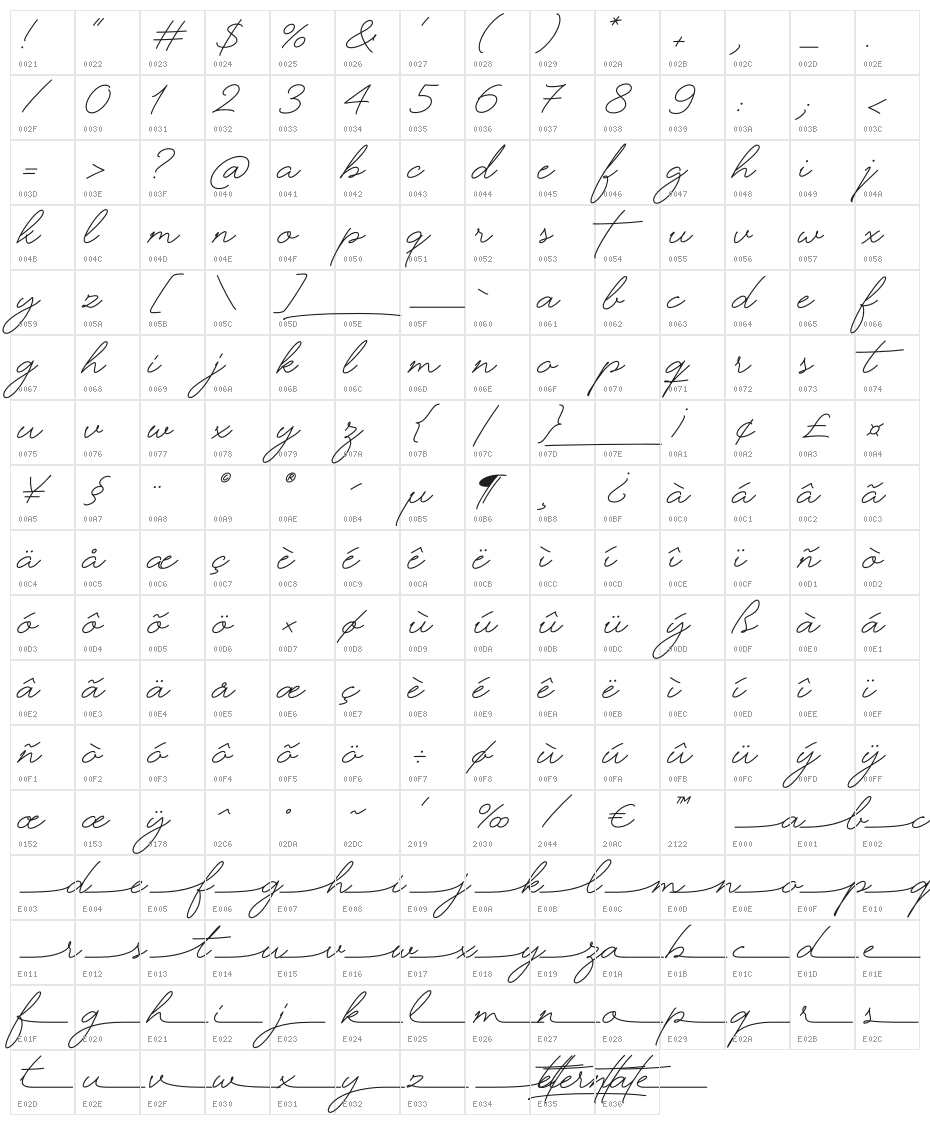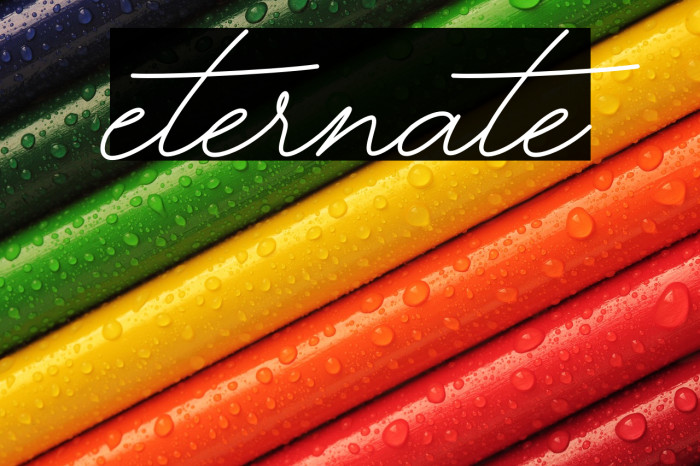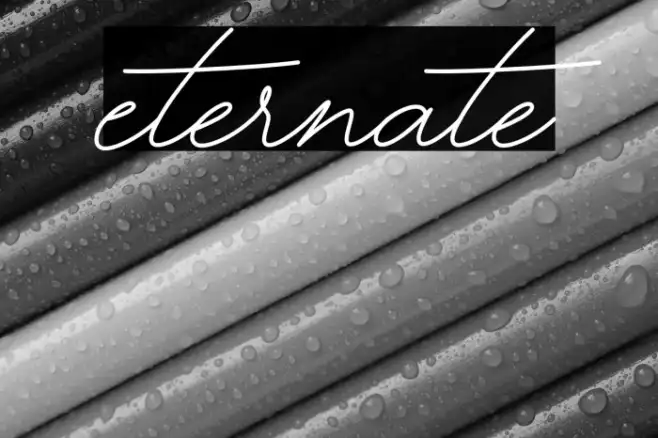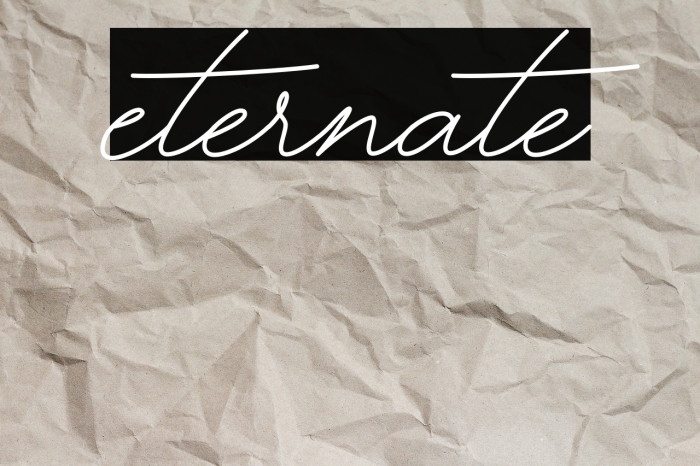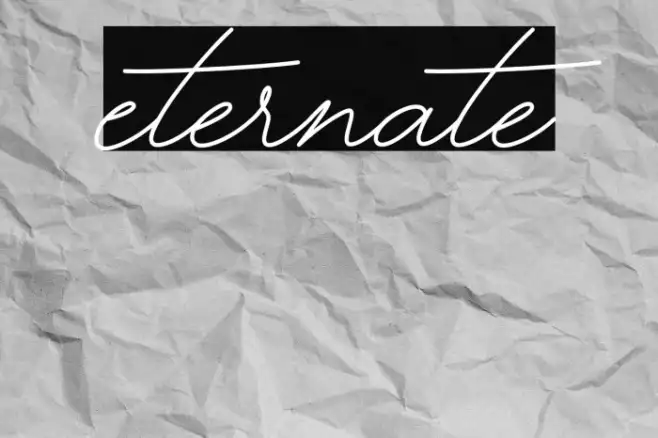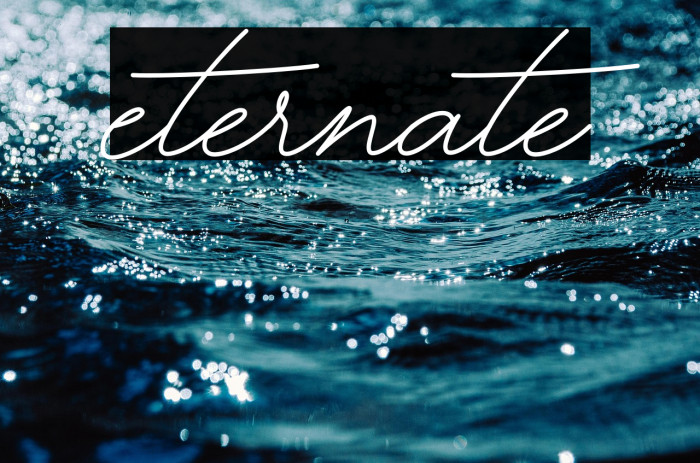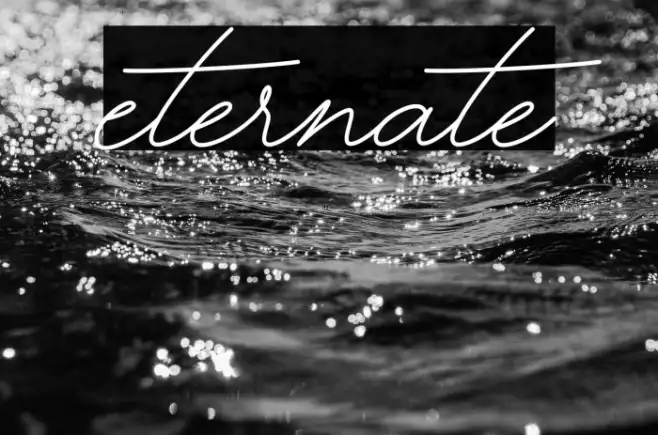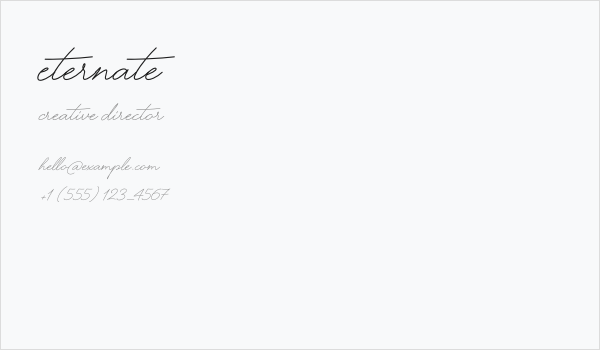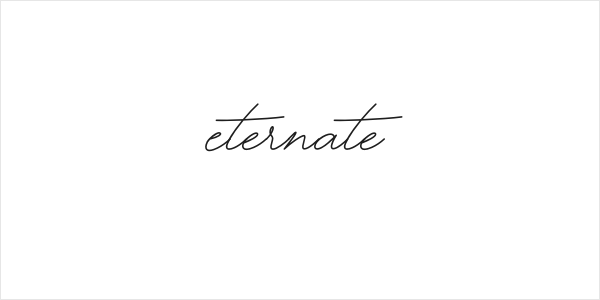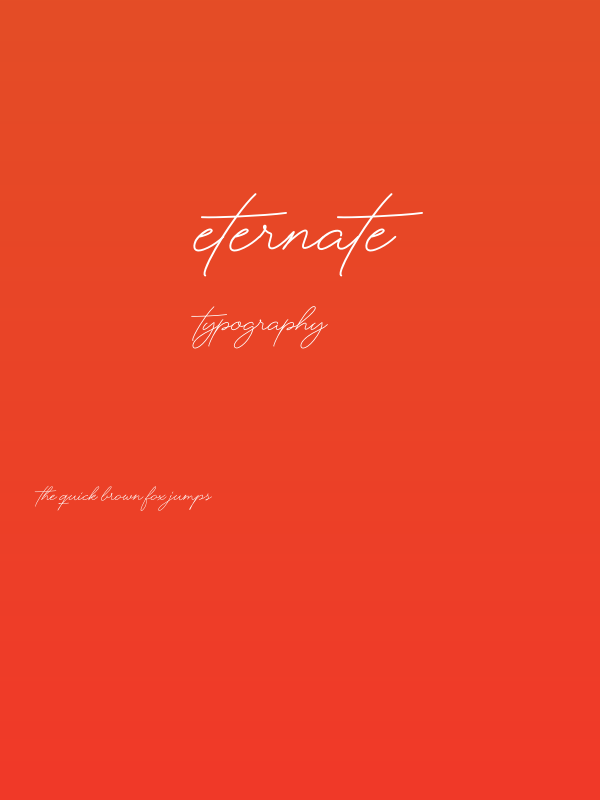
Eternate Font
Eternate Description
This elegant script font features fluid, connected strokes that mimic the natural flow of handwriting. The characters are gracefully elongated, with a consistent slant that adds a sense of motion and sophistication. The uppercase letters are slightly larger and more ornate, while the lowercase letters maintain a smooth, continuous line. The numerals and special characters are designed to complement the overall style, ensuring a cohesive appearance. This font exudes a sense of elegance and refinement, making it ideal for formal invitations, branding, and other projects that require a touch of class.